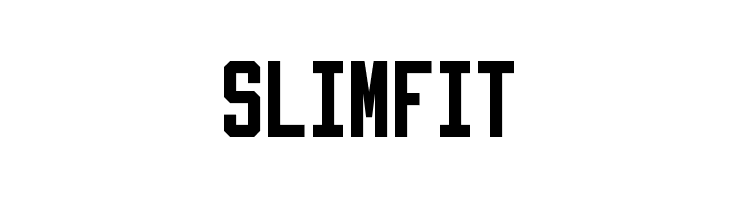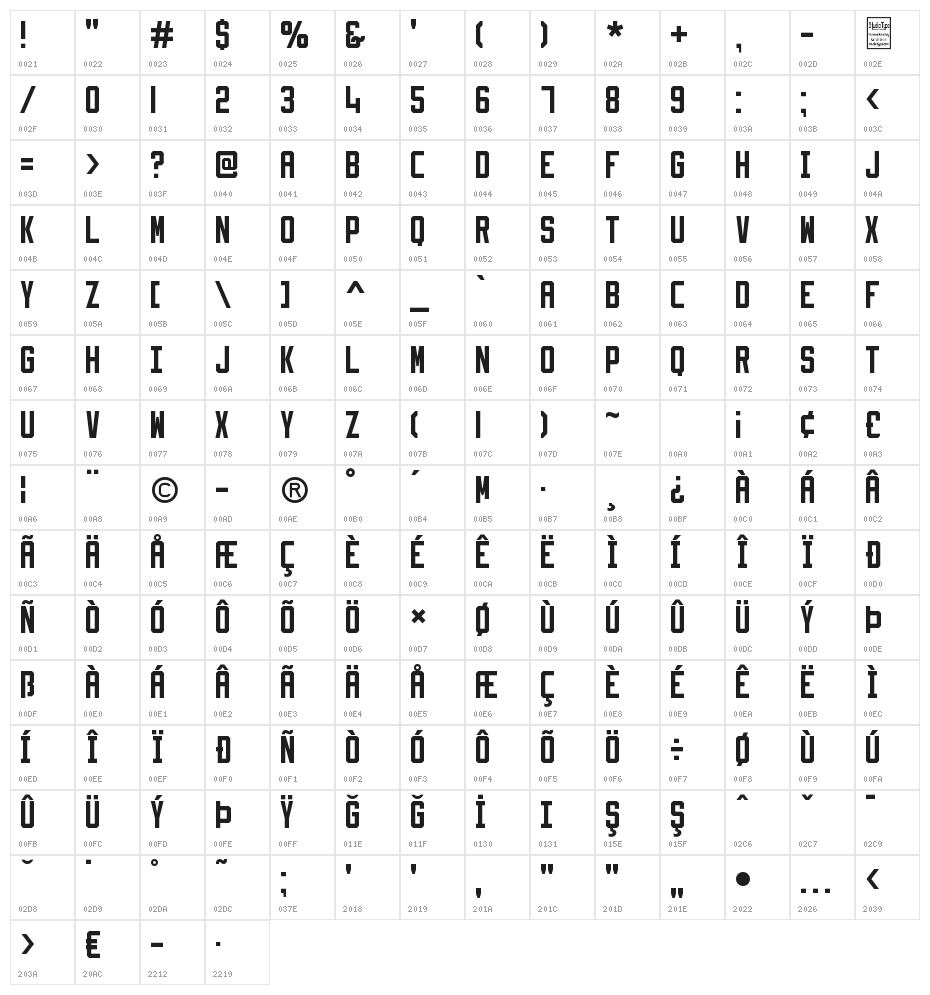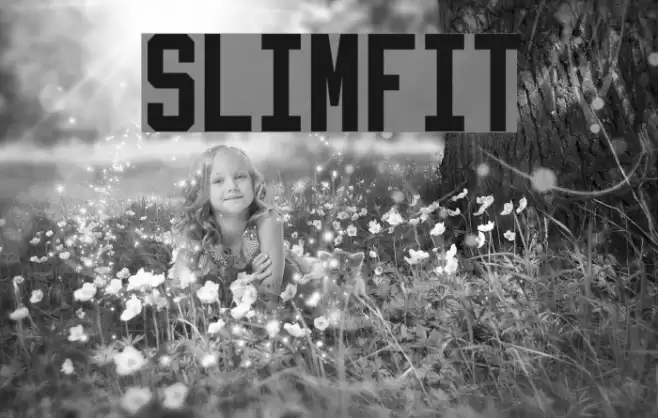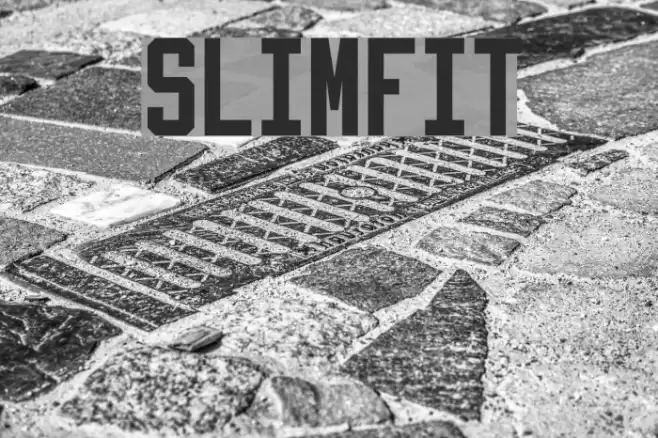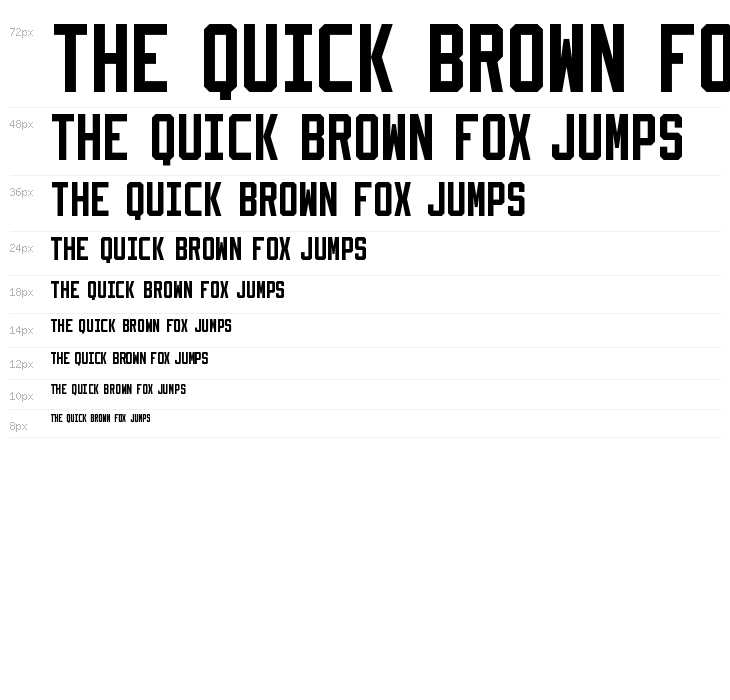
Slimfit Font
Slimfit Description
This font features a bold, geometric design with a strong, angular presence. The characters are uniformly structured, providing a modern and industrial feel. The uppercase letters are particularly striking, with a consistent height and width that create a cohesive look. The numerals and special characters maintain the same boldness and geometric style, ensuring a seamless integration across all text elements. The font's design is clean and impactful, making it suitable for attention-grabbing headlines and titles.